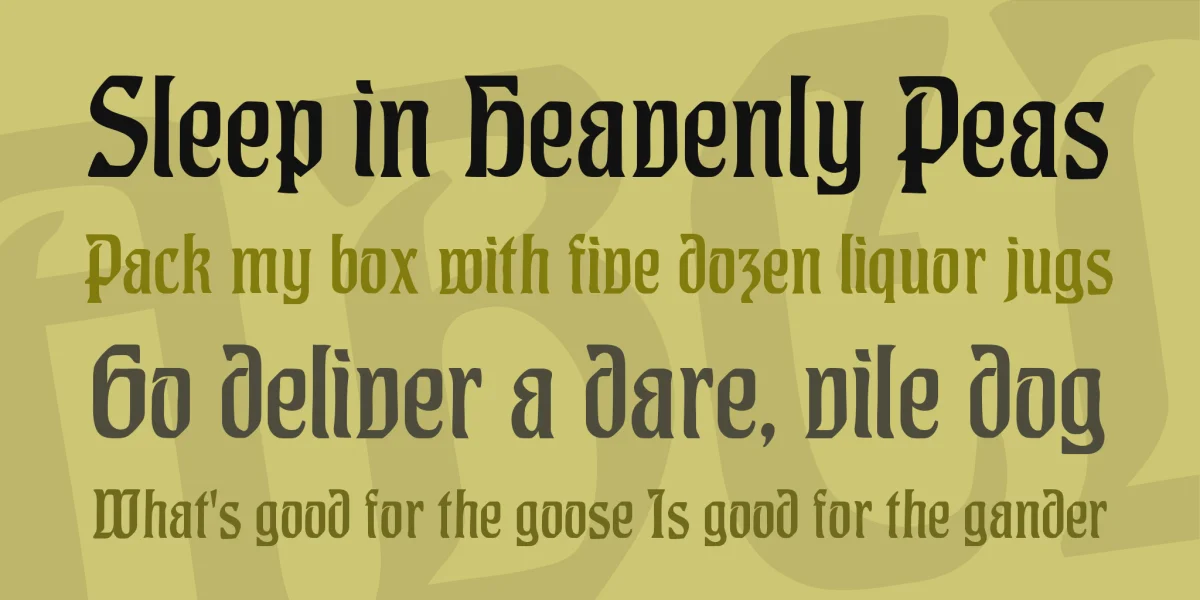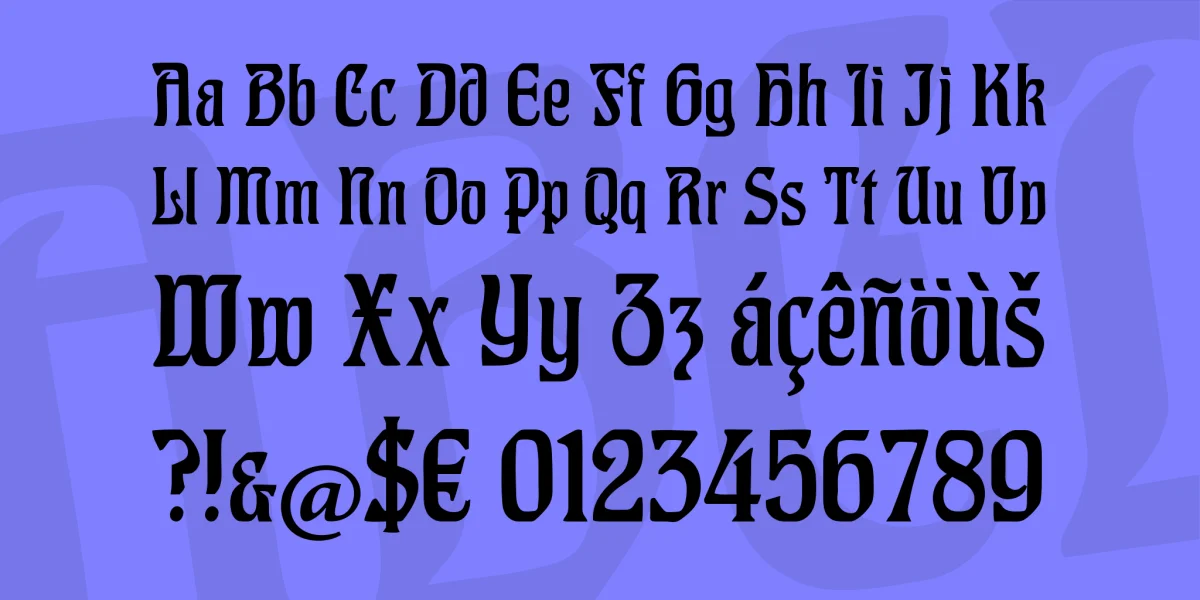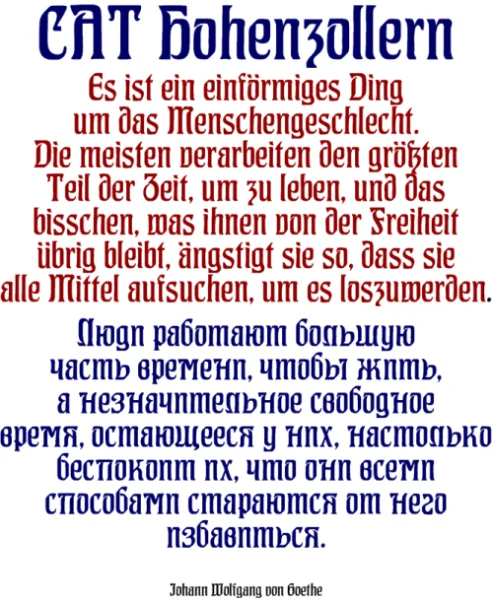
Google translation of the original description in German: Recently I was informed that there is a new vectorization on the Internet, Vector Magic. This car Trace program should be significantly better than what could previously install on his computer.
Kind enough to offer the seller for a first test for free and that you can perform two vectorization and download the result also. So I did the test with a scanned type specimen sheet Hohenzollern font. And yes, that what this company offers is there already a lot better than anything I've experienced so far with an automatic trace of pixel graphics, but that's just not as good as the featured pattern from the manufacturer.
Nevertheless, I decided to use the so-created data for the preparation of a new font, even if here the restriction that the contours just are not my usual quality scale. Nevertheless, I believe that doing a perfectly usable font is created.
And when finished with the roman characters so I felt that this font as well is also suitable for the Cyrillic script. So I developed these additional characters. By the way, the adjacent quote Johann Wolfgang von Goethe is then found in the Russian sample text, albeit a little cut small.